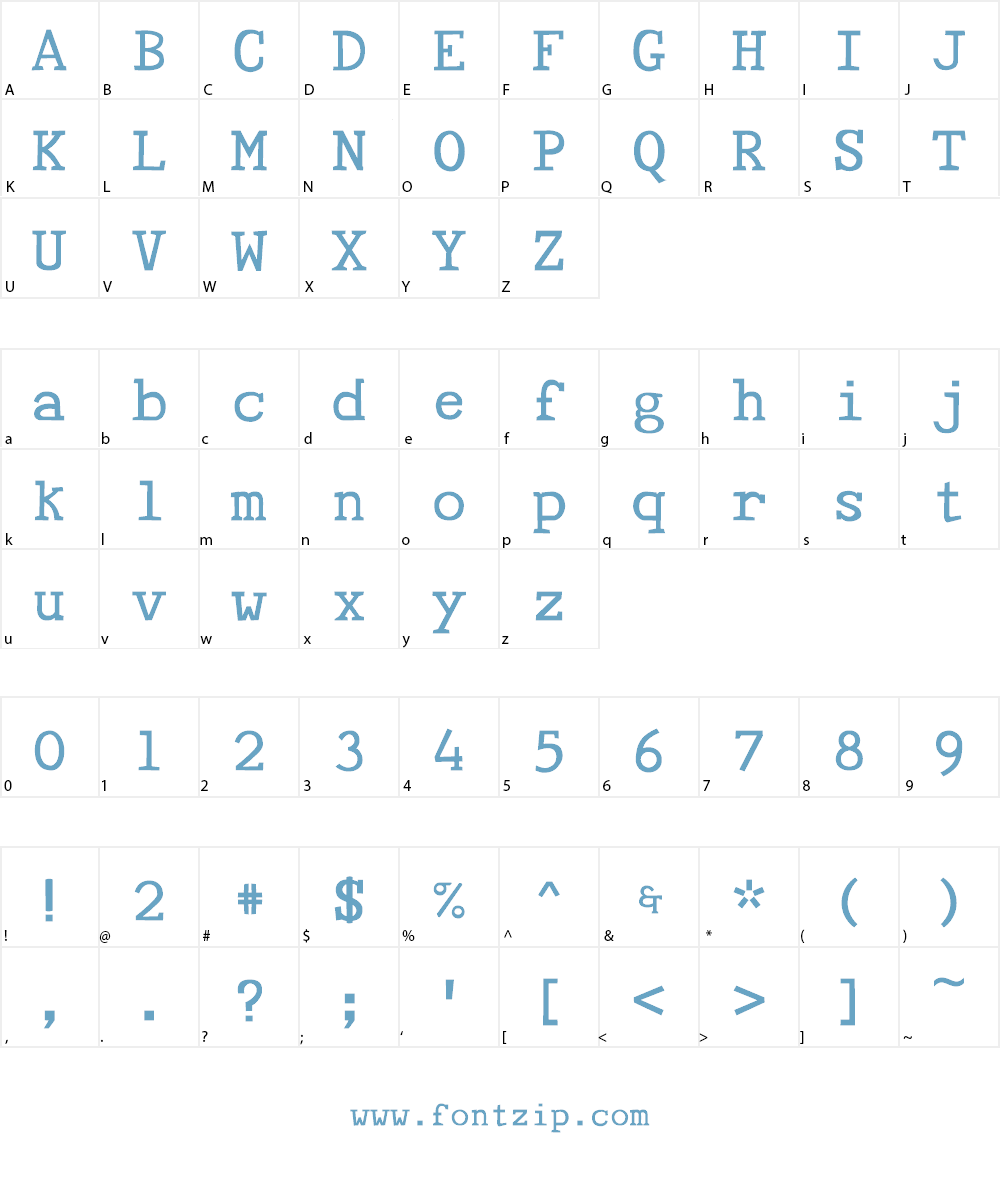
Tye Paloon is a monospace font that plays at being a typewriter font the way that a child in a bathtub might play at being a submarine. It is designed to be used at small point sizes for a rough, typeish look. It has all the alphanumeric characters plus ordinary typerwriter punctuation.